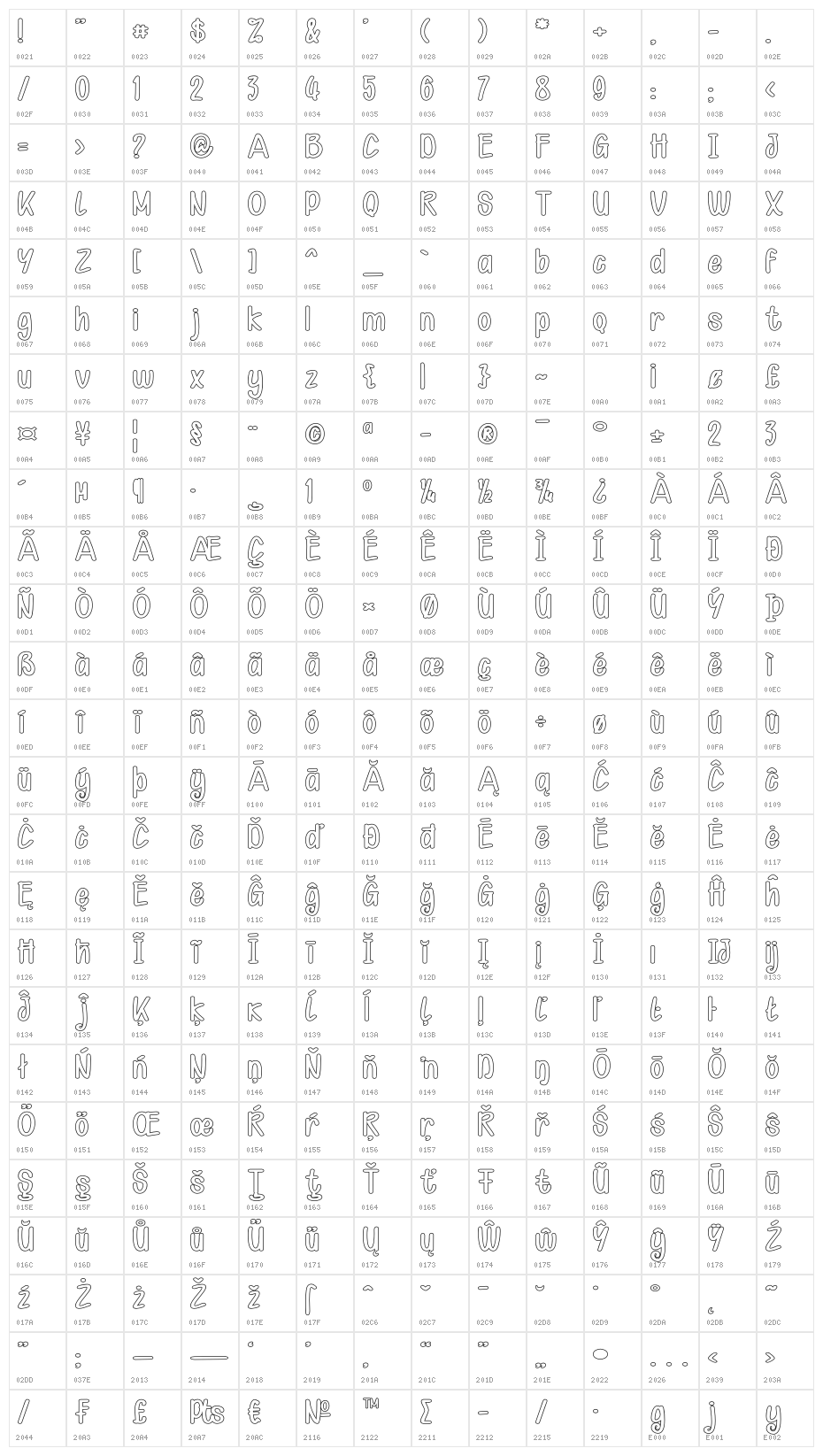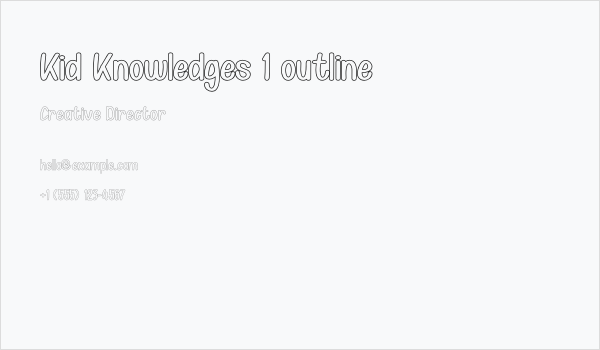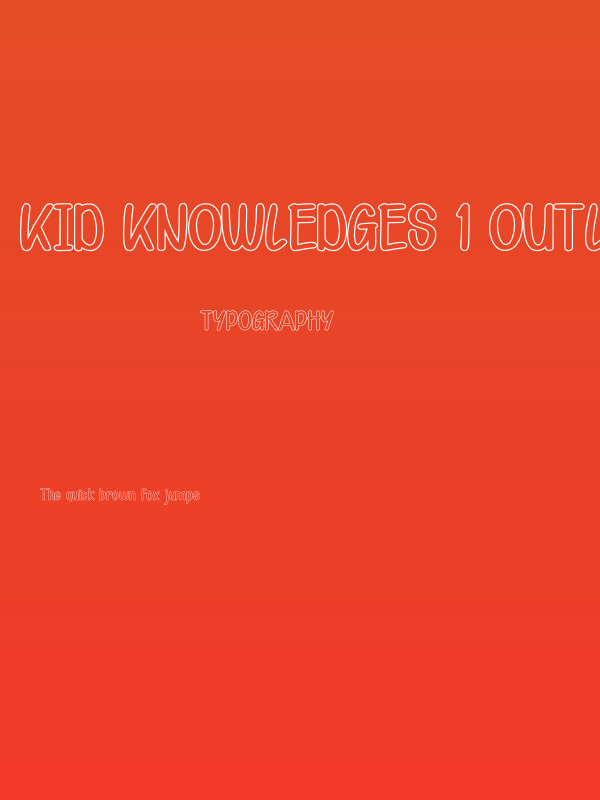
Kid Knowledges 1 outline Font
Kid Knowledges 1 outline Description
This playful and whimsical font features an outline style with rounded edges, giving it a friendly and approachable appearance. The characters are bold and slightly irregular, adding a hand-drawn feel that is both casual and inviting. The uppercase and lowercase letters maintain a consistent height, while the numbers and special characters are designed to complement the overall style. This font's outline design makes it stand out, making it suitable for projects that require a fun and engaging look.
| Proposed Projects | Ideal for children's books, educational materials, playful branding, and creative posters. |